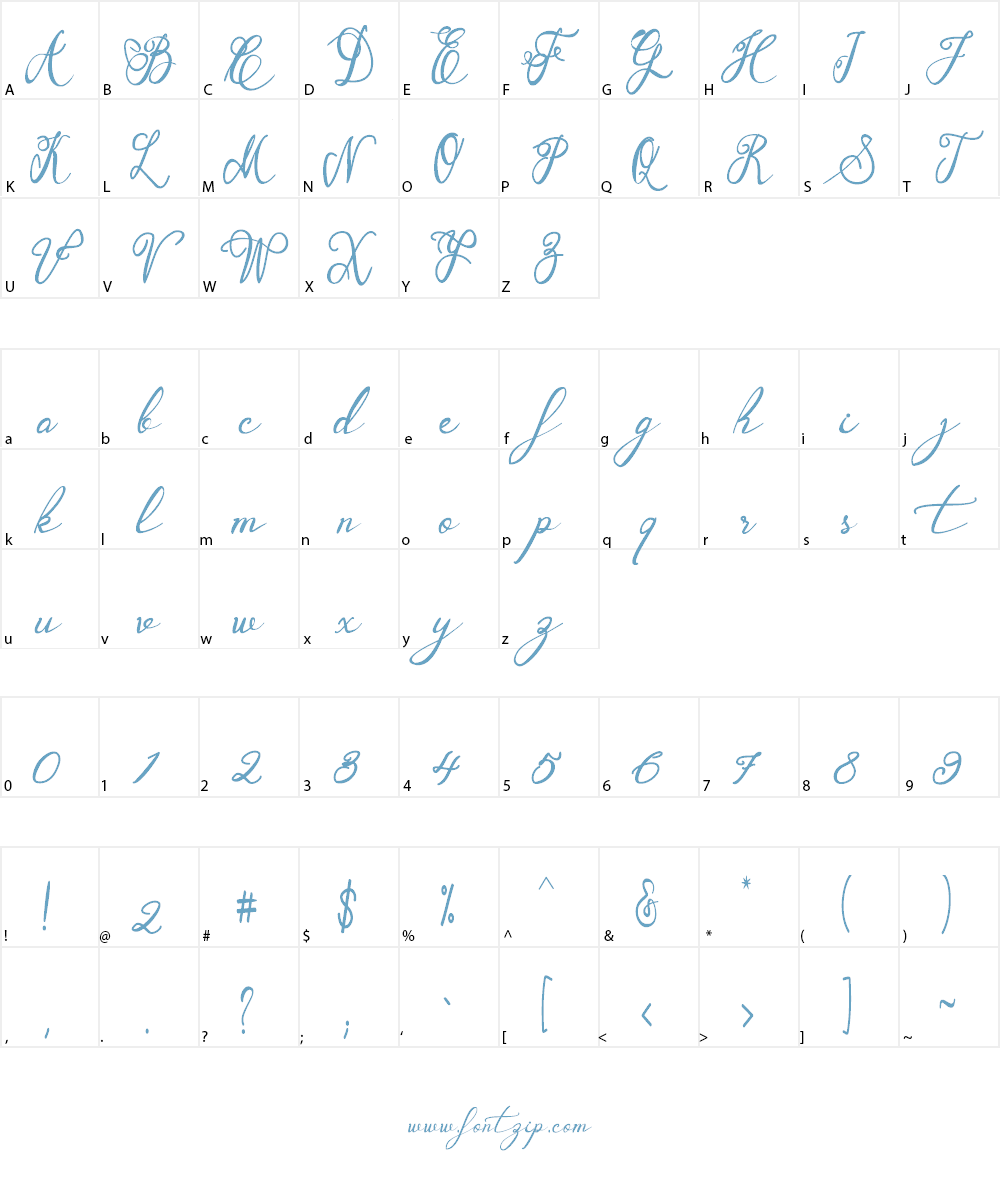
Hi Font Lover! This is a modern calligraphy font with the current handwriting style. Introducing Garbera Flower Calligraphy Font.
Garbera Flower Font designed and shared by letterara. Garbera Flower Script Font is modern script font, every single letters has been carefully crafted to make your text looks beautiful. With modern script style this font will perfect for many different project, example: invitations, greeting cards, posters, name card, quotes, blog header, branding, logo, fashion, apparel, letter, stationery and more !
This font is easy to use, the basis if this unique font is it’s simplicity.